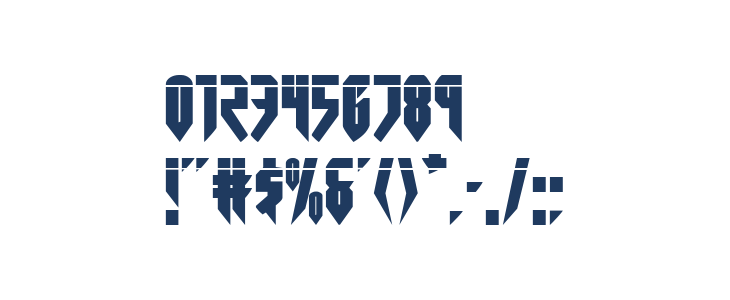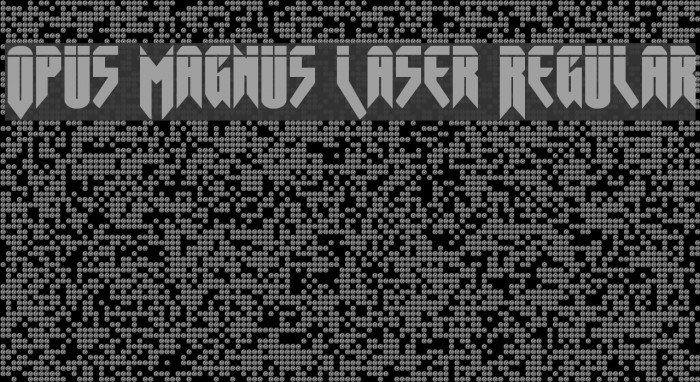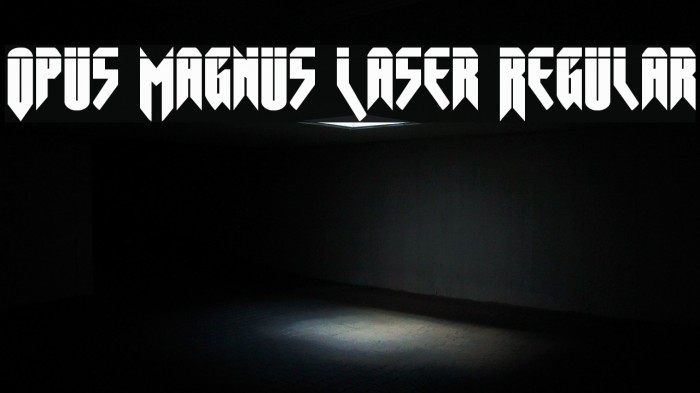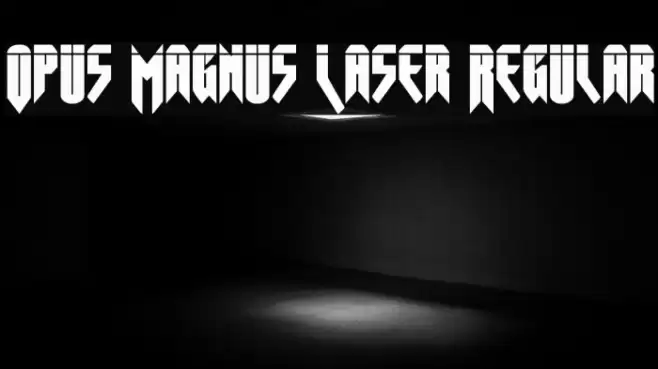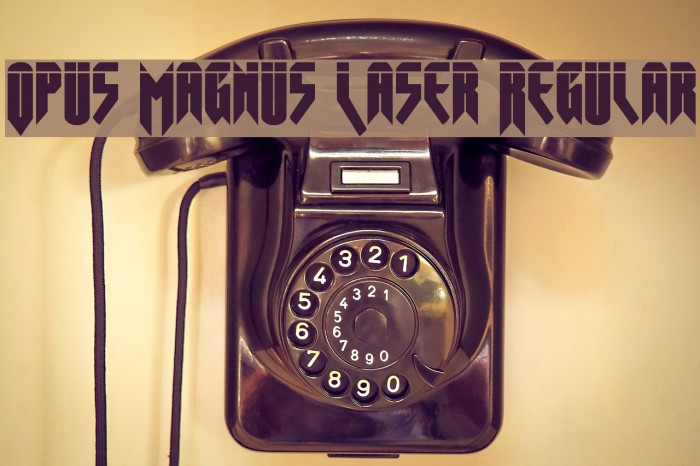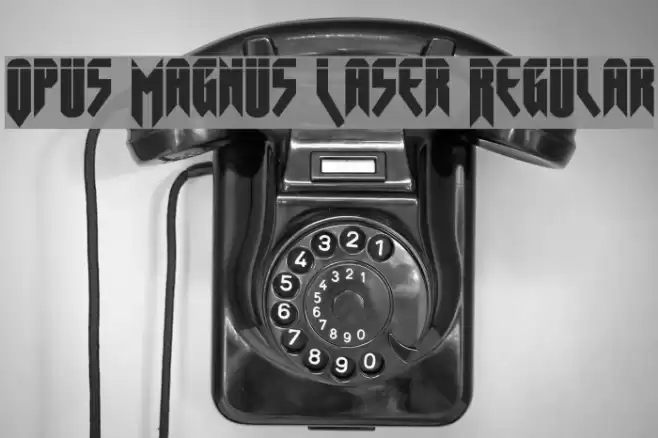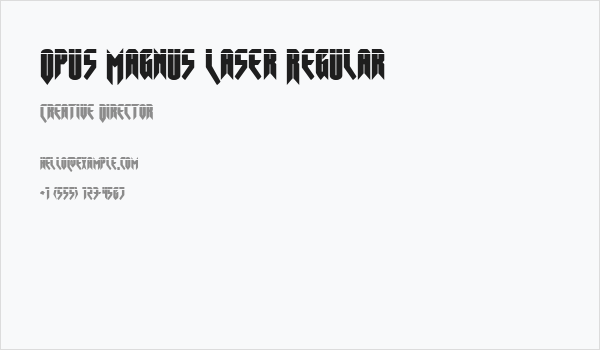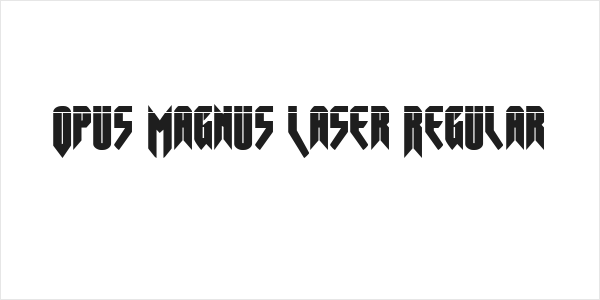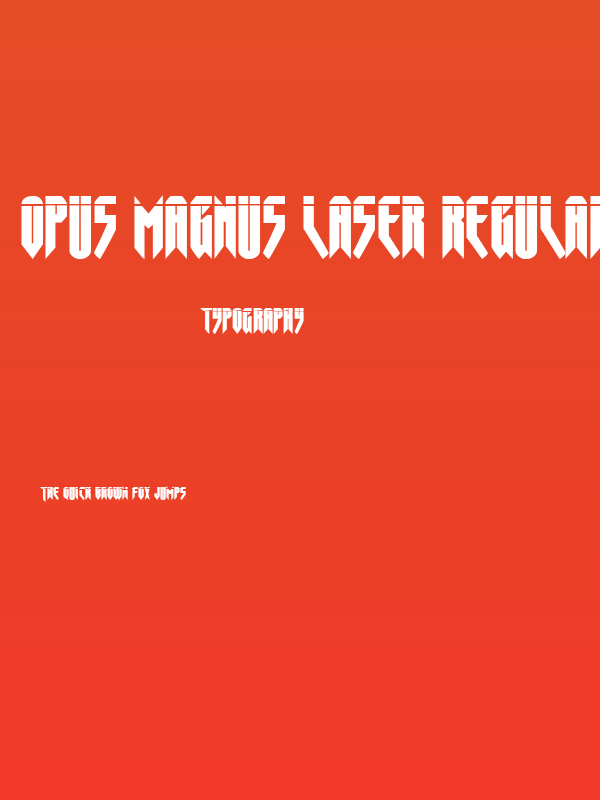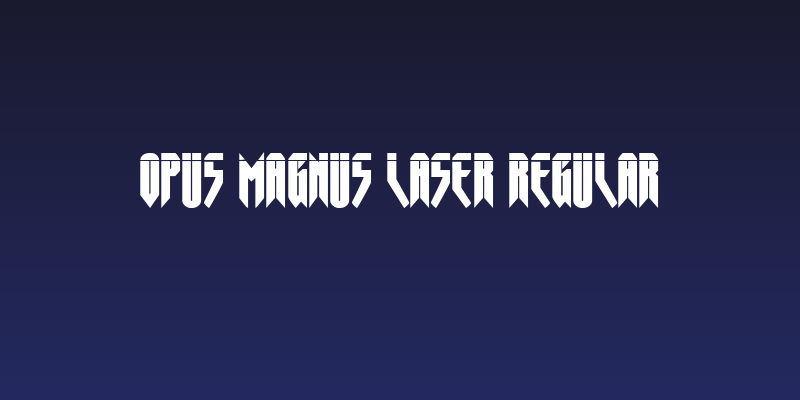
Opus Magnus Laser Regular Font
Opus Magnus Laser Regular Description
This font features a bold, geometric design with sharp angles and a futuristic aesthetic. The characters are constructed with thick, straight lines and pointed edges, creating a striking and aggressive appearance. The uppercase and lowercase letters maintain a consistent style, emphasizing symmetry and uniformity. Numbers and special characters are designed with the same angular approach, ensuring a cohesive look across all elements. The font's unique style makes it stand out, ideal for projects that require a modern and edgy touch.
| Proposed Projects | Ideal for sci-fi themed designs, video game titles, posters, and branding that requires a modern, edgy look. |